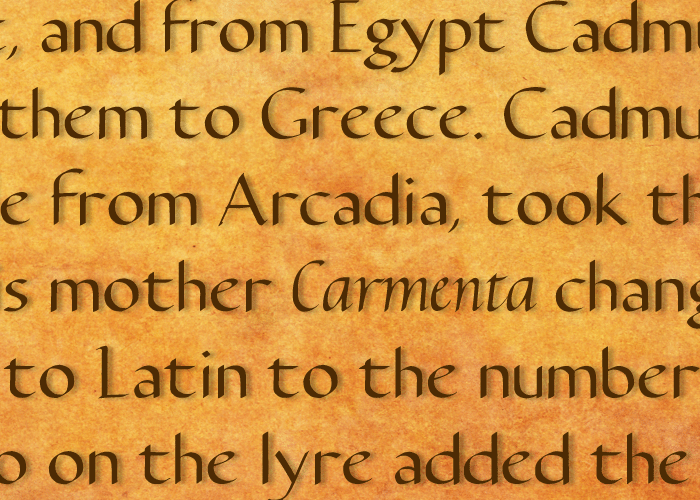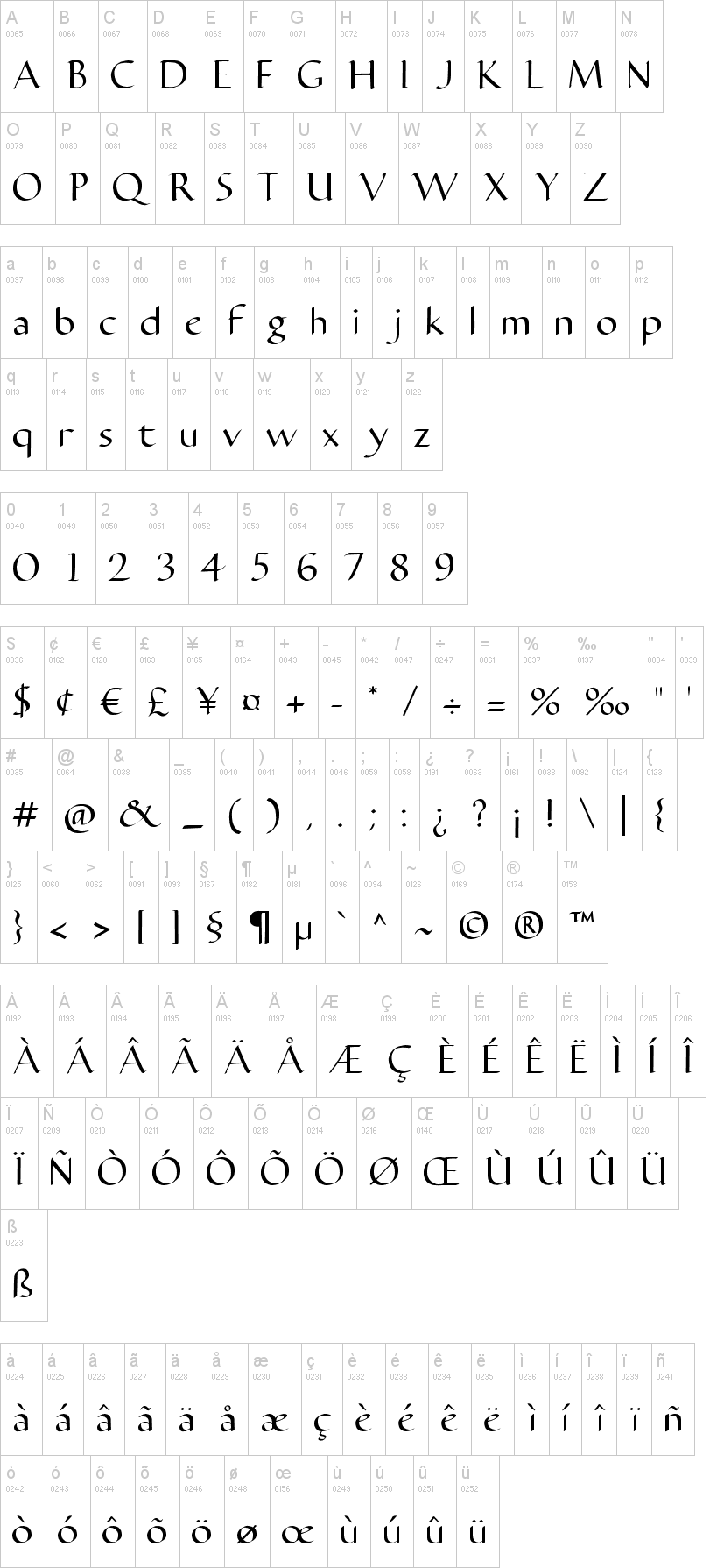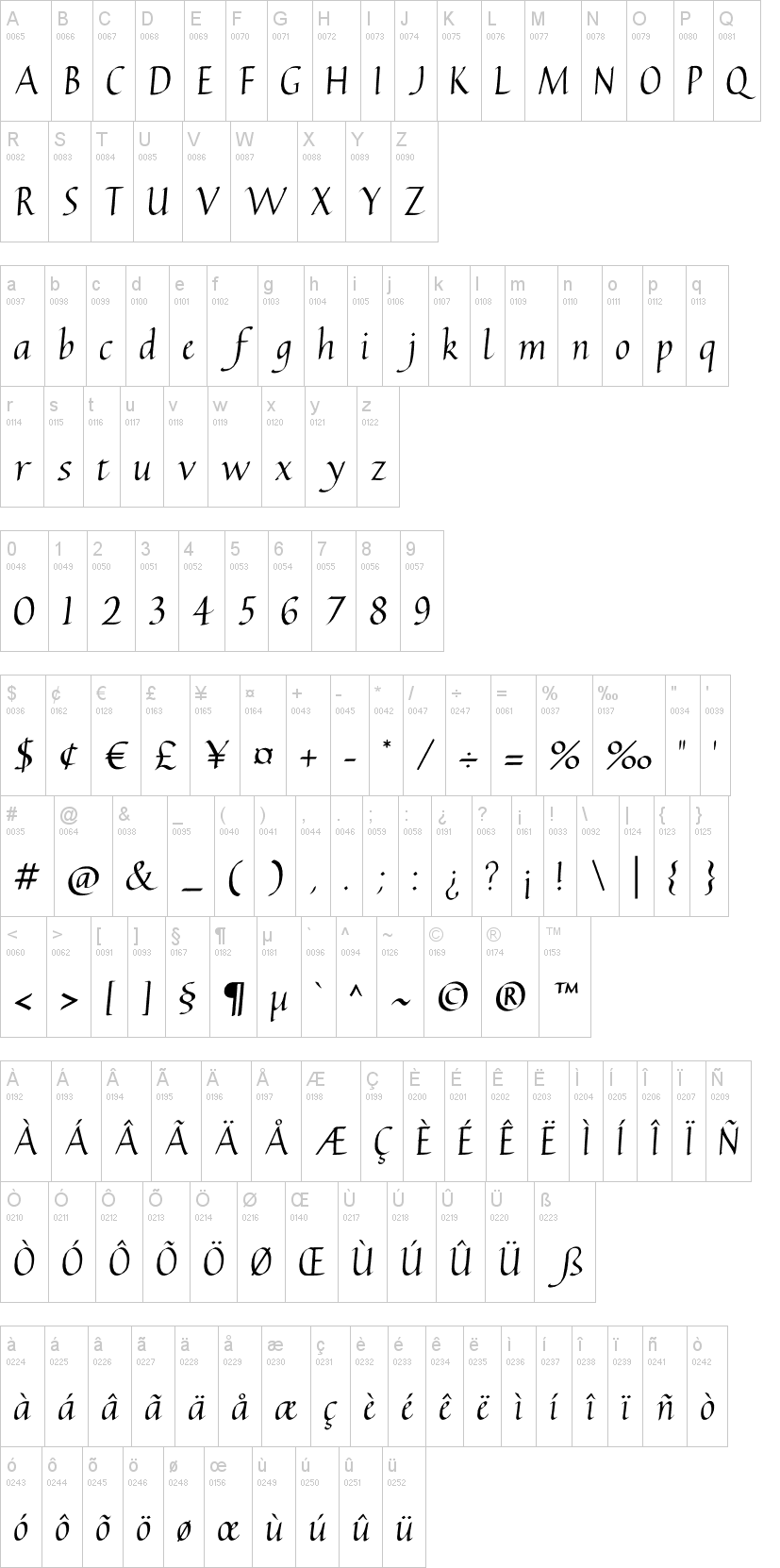
Carmenta Italic 2.00.ttfNote of the authorA nice, basic calligraphic typeface. The .zip file contains two fonts, regular and italic. Both fonts are in OpenType format and support ligatures and old-style numerals. The typeface is named after Carmenta, the Roman goddess of childbirth and prophecy who is also said to have invented the Latin alphabet.